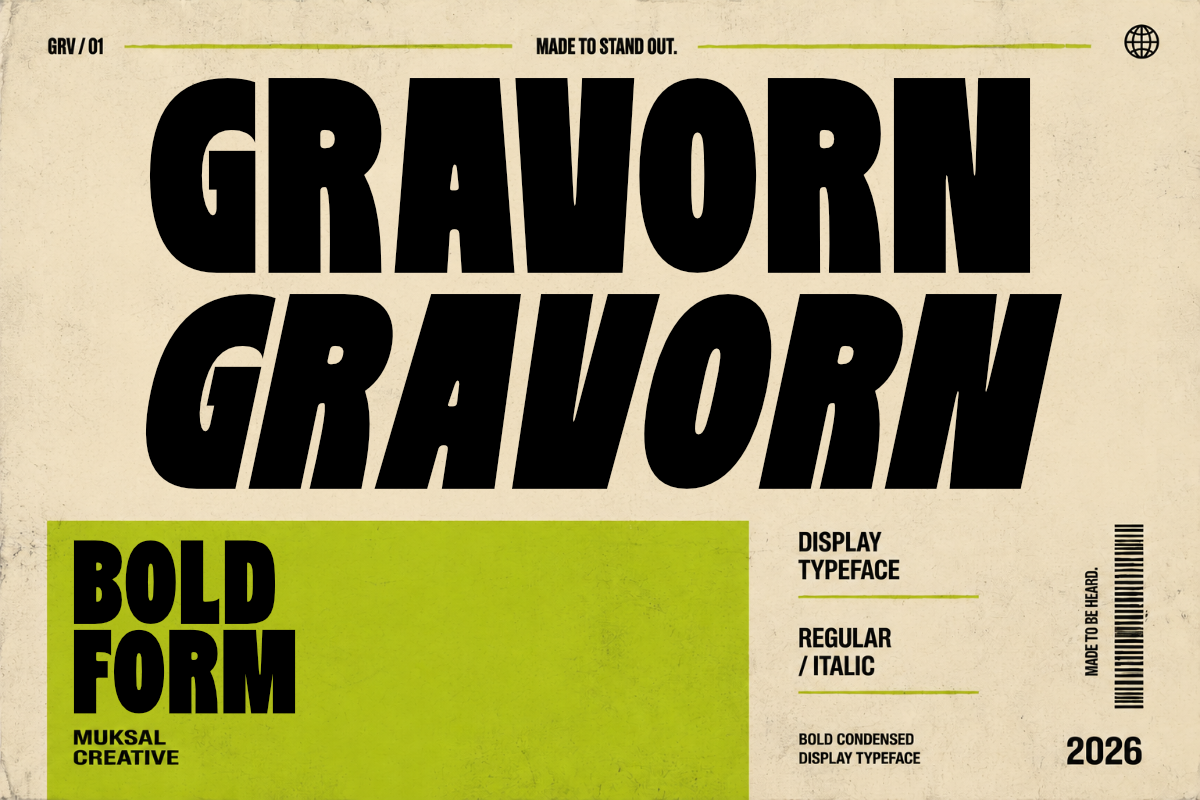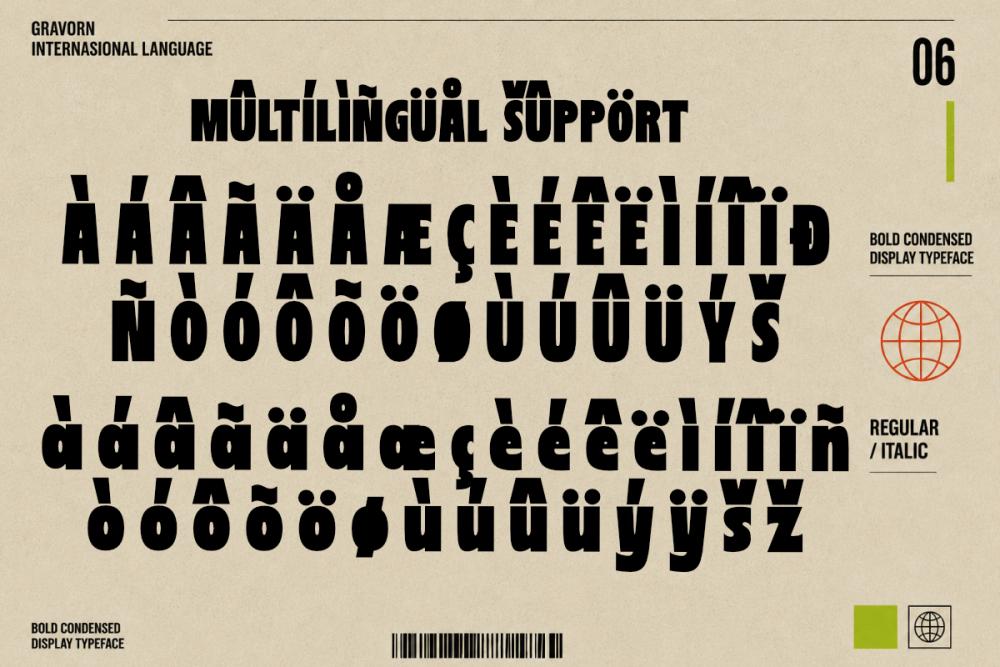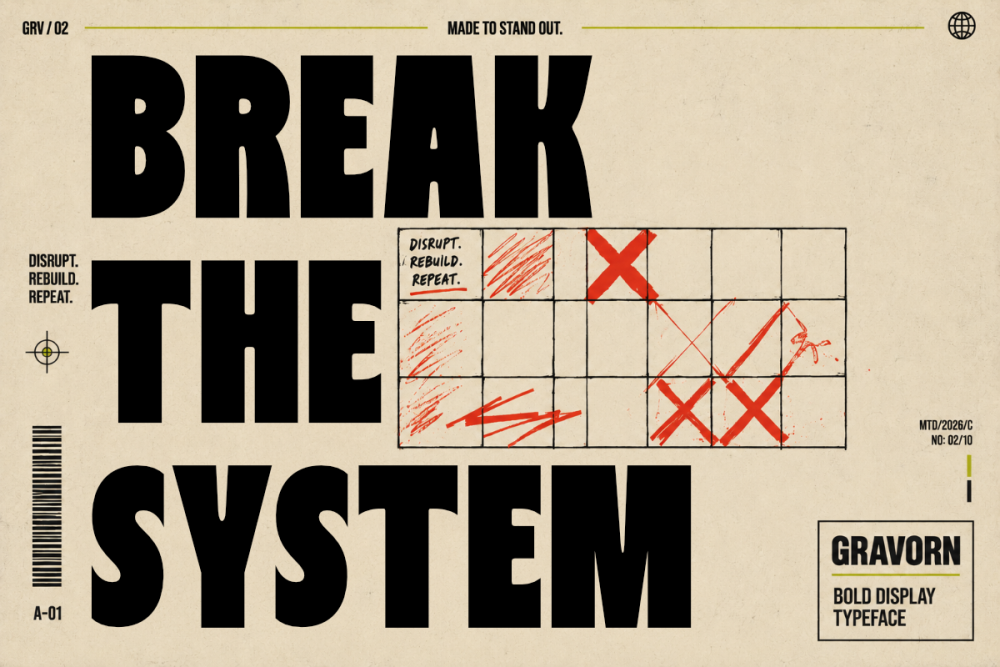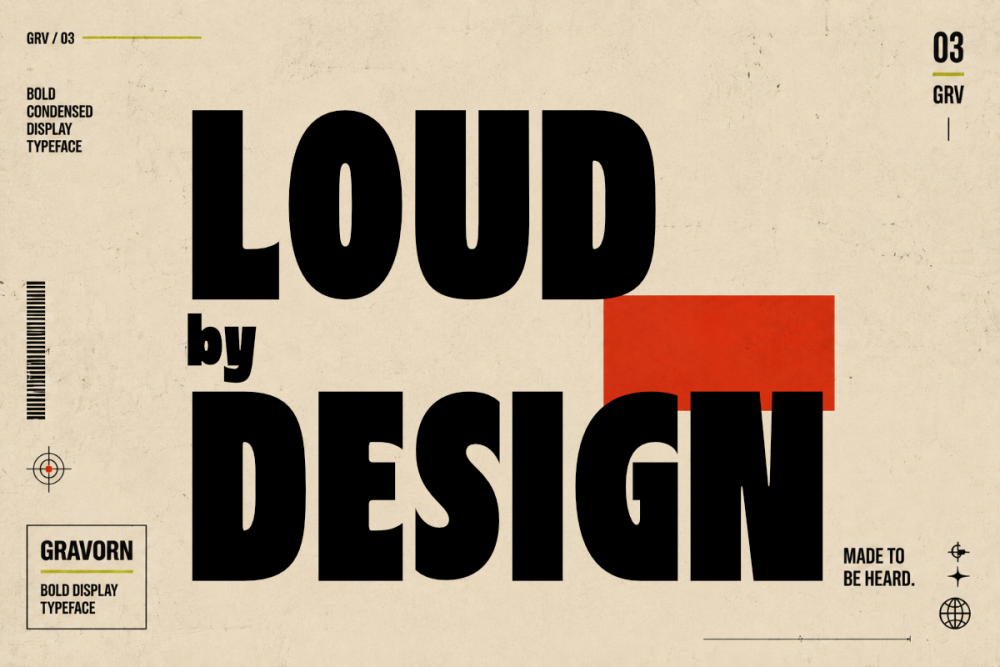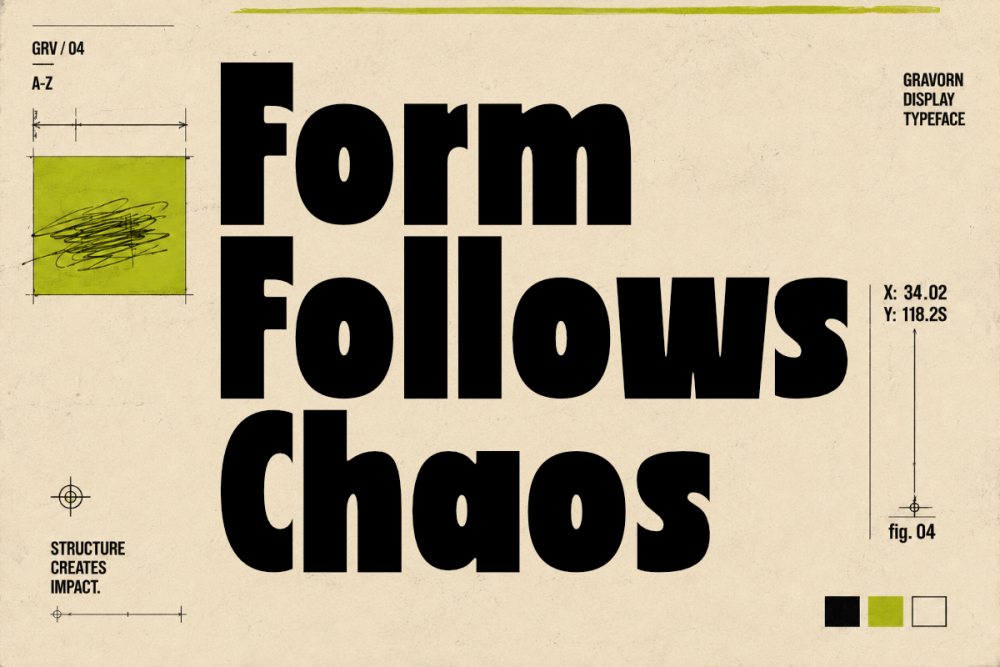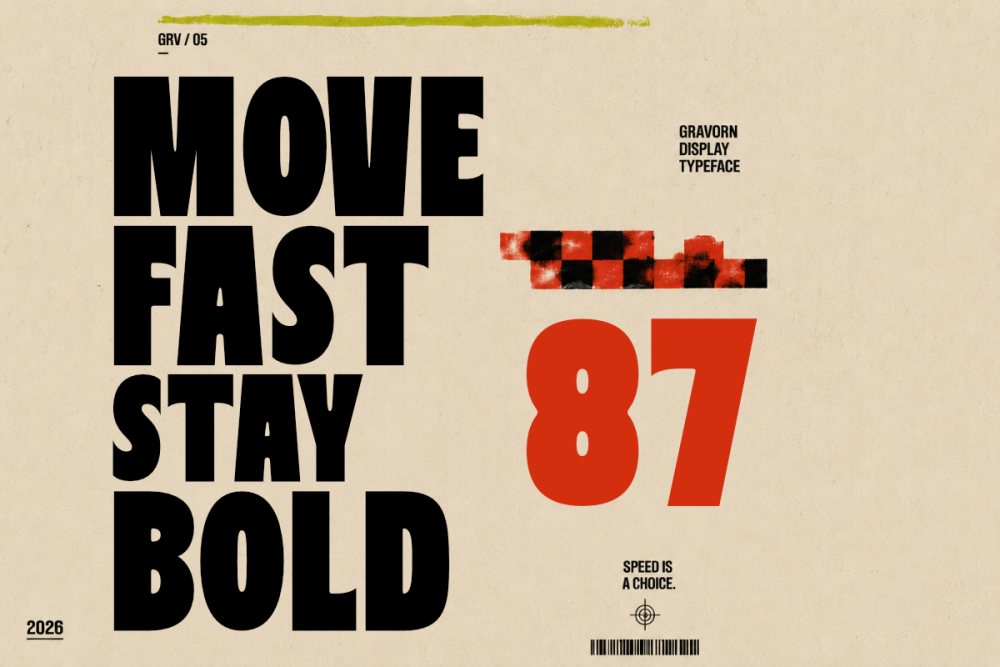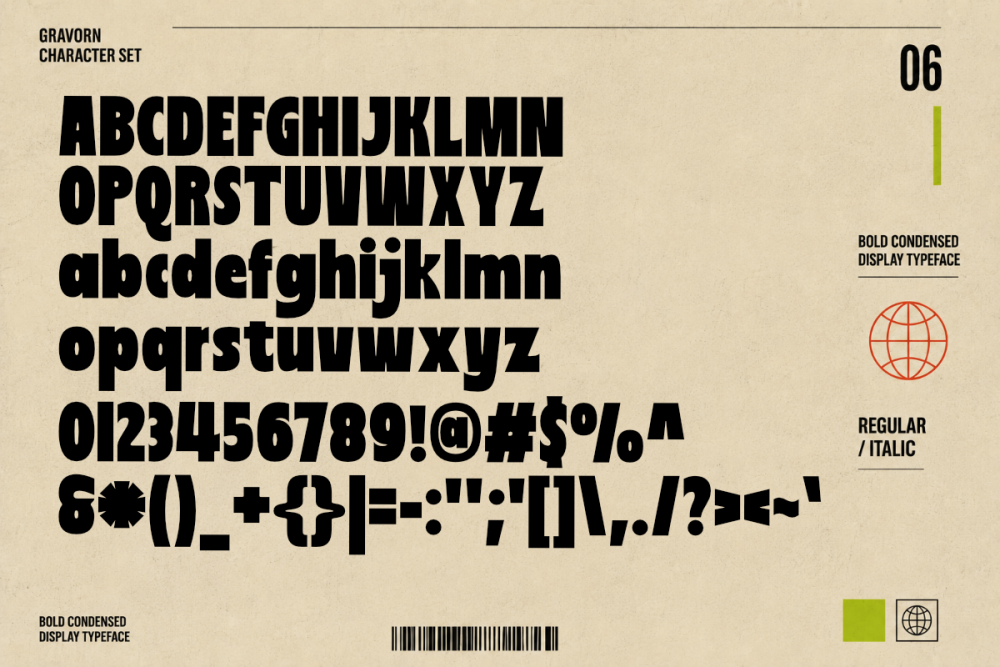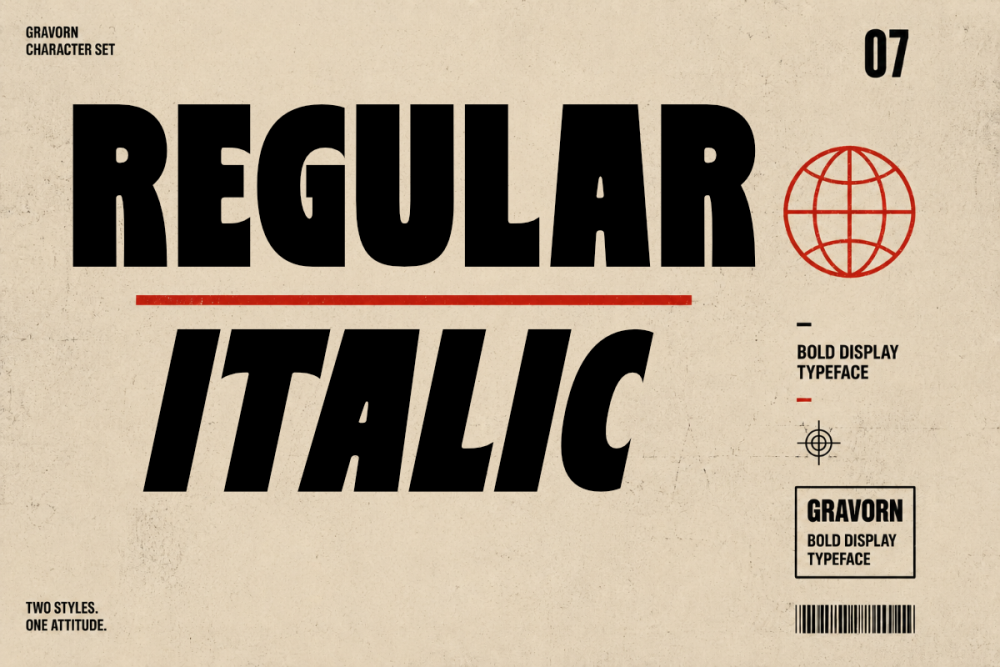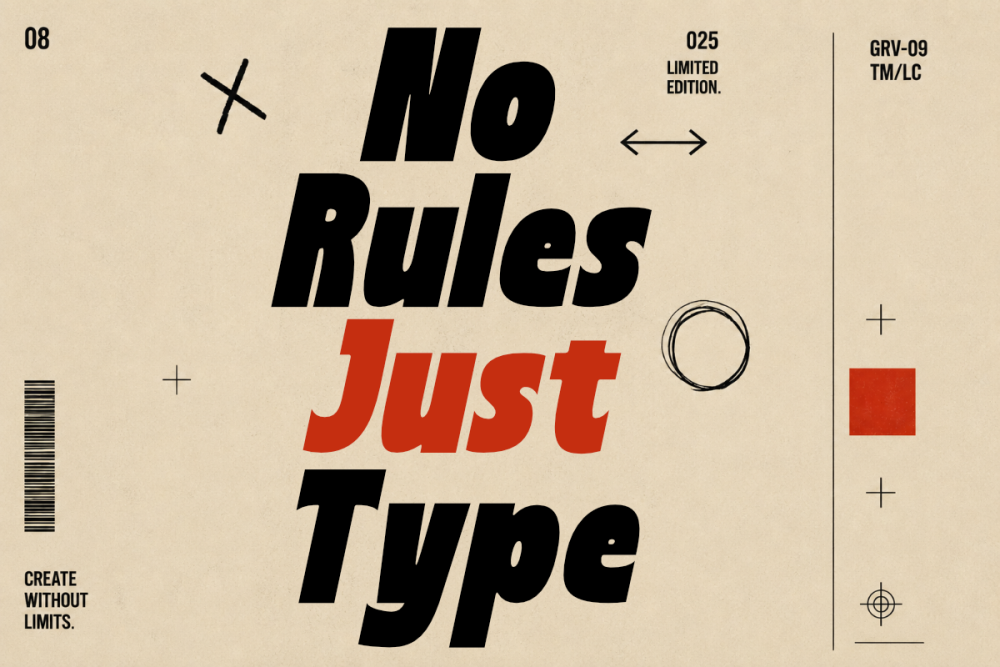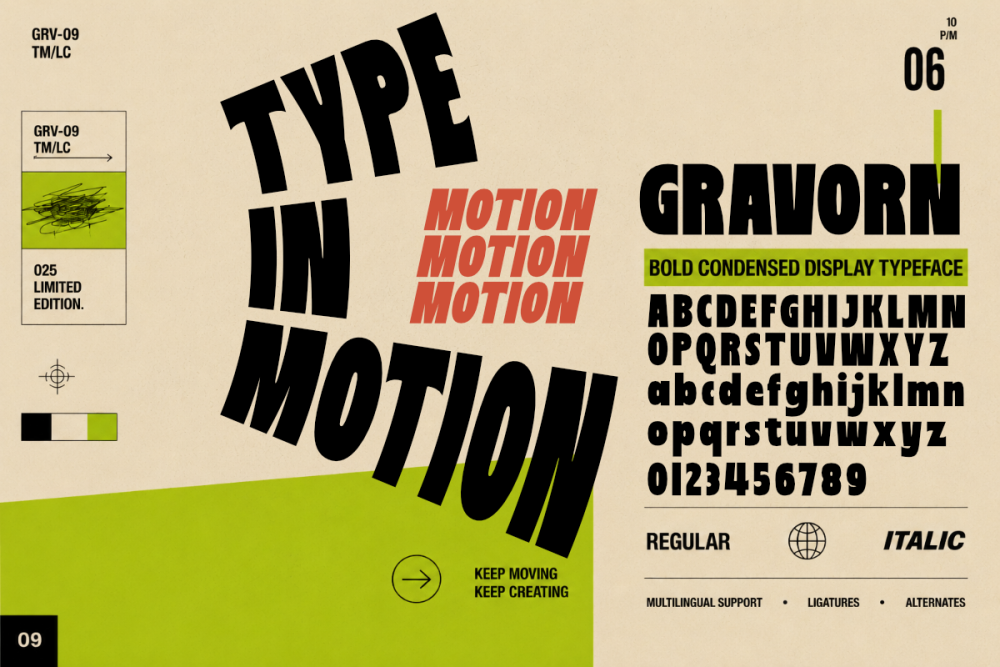
Gravorn is a bold condensed display typeface built for strong, confident, and high-impact typography. Its tall proportions, heavy letterforms, and distinctive character give every word a powerful visual presence while maintaining a compact structure.
Designed for contemporary graphic design with a touch of retro and industrial attitude, Gravorn works especially well for posters, headlines, editorial layouts, branding, packaging, sports graphics, apparel, album covers, advertising, and experimental typography.
Gravorn comes in Regular and Italic styles, allowing you to combine solid, commanding typography with a more dynamic sense of movement. Its condensed proportions are particularly useful for oversized headlines and tight compositions where maximum visual impact is needed.
Whether used at a massive scale or combined with photography and graphic elements, Gravorn is designed to make typography impossible to ignore.
Features:
• Regular & Italic
• Bold Condensed Display Style
• Uppercase & Lowercase
• Numerals & Punctuation
• Multilingual Support
• Ligatures
• Alternates
• Perfect for Headlines & Large Display Typography
Gravorn – Bold Condensed Display Typeface